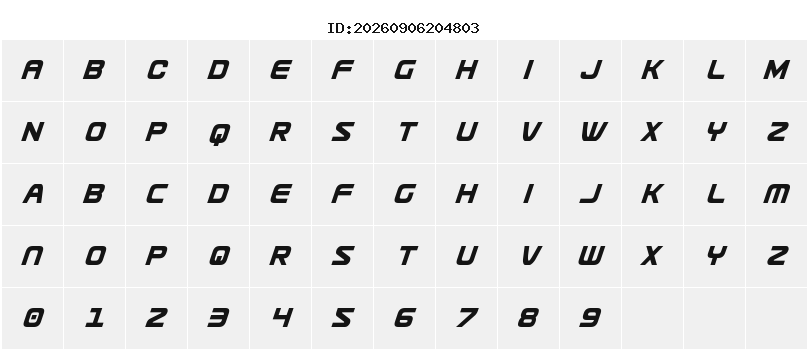
Usuzi Condensed Italic Preview
• Font Name: Usuzi Condensed Italic
• Font Style: Condensed Italic
• Full Font Name: Usuzi Condensed Italic
About Usuzi Condensed Italic.ttf
Usuzi Condensed Italic.ttf is a modern, elegant sans-serif font designed for ultimate readability and visual harmony. Perfect for branding, headlines, web design, and print materials.